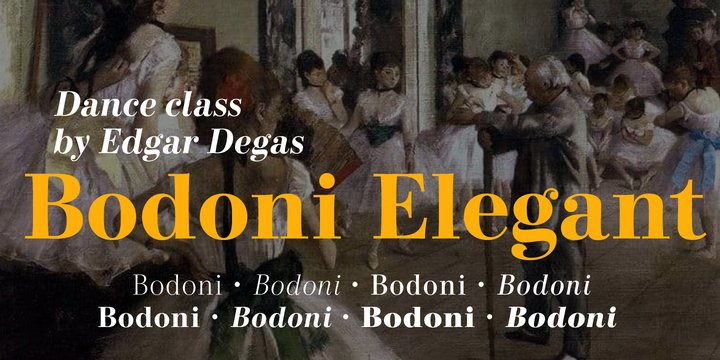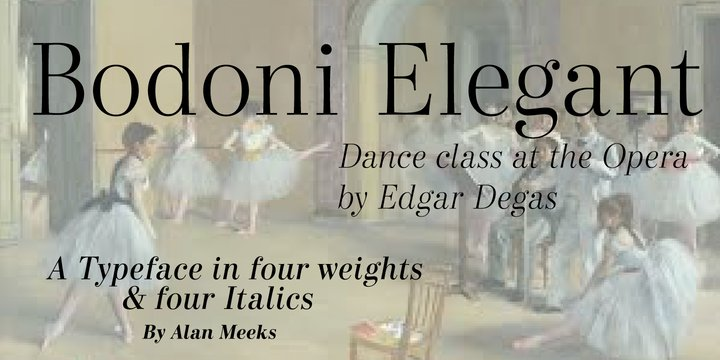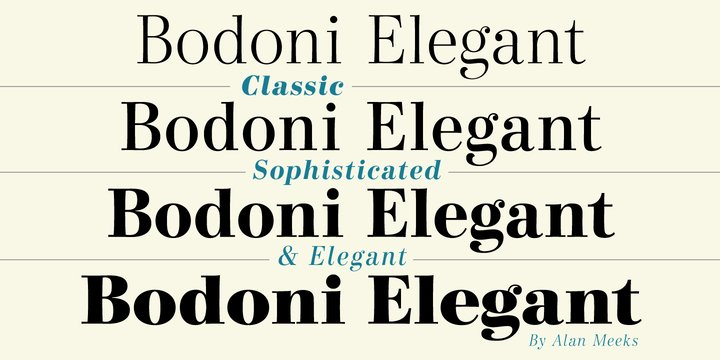
Whenever I went to use Bodoni I could never quite find a version I was happy with, so I designed my own incorporating, hopefully, the best of all the others. I decided to make a slight curve on the uprights, rather like Optima, because I thought this added touch of elegance which many of the others lacked….hence the name.